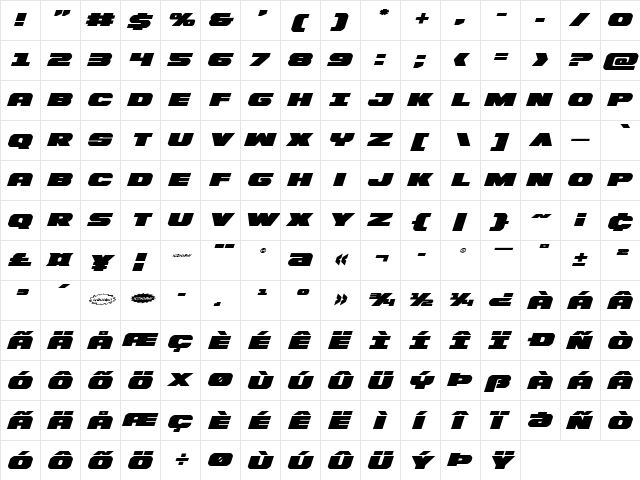
Bummer Expanded Italic Expanded Italic
Design Context for Bummer Expanded Italic Typeface
Bummer Expanded Italic takes a measured approach to typography — its balanced proportions and neutral character make it a reliable workhorse for both digital and print work. The slanted form adds forward momentum and visual energy.
Pro Tip: Use Bummer Expanded Italic for emphasis, pull quotes, and subheadings where its slanted energy can add rhythm to the layout.